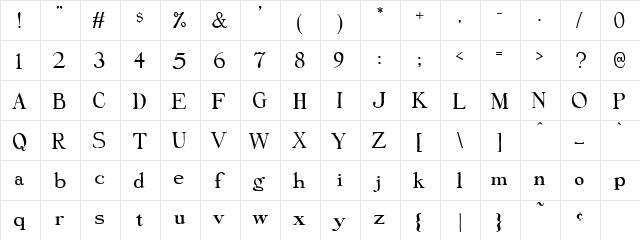
Perfectly Cromulent Regular
Design Context for Perfectly Cromulent Typeface
Perfectly Cromulent takes a measured approach to typography — its balanced proportions and neutral character make it a reliable workhorse for both digital and print work.